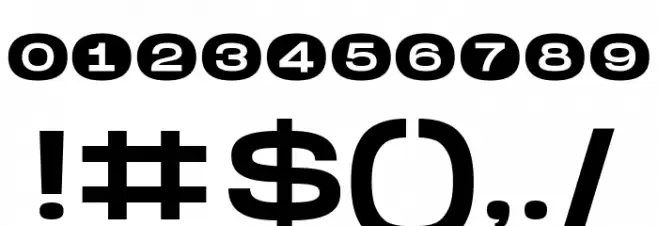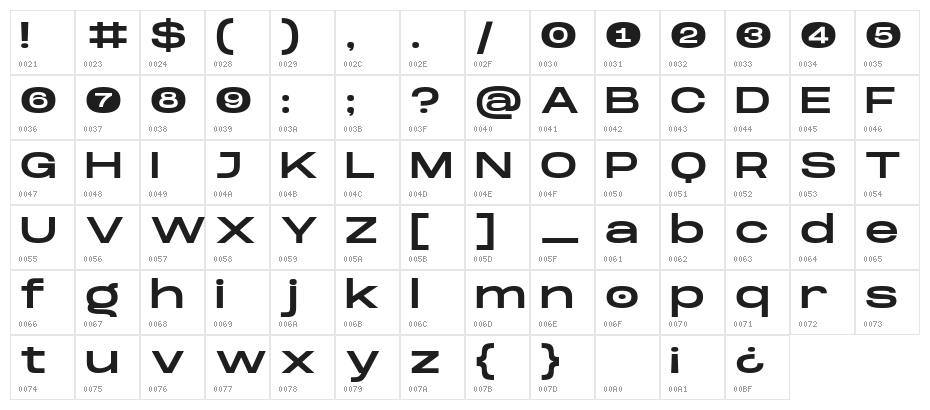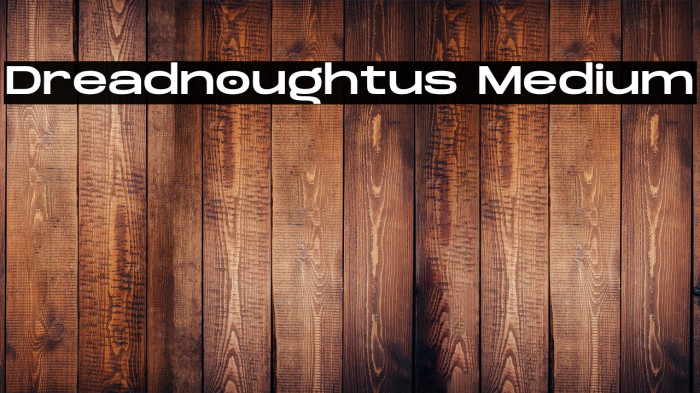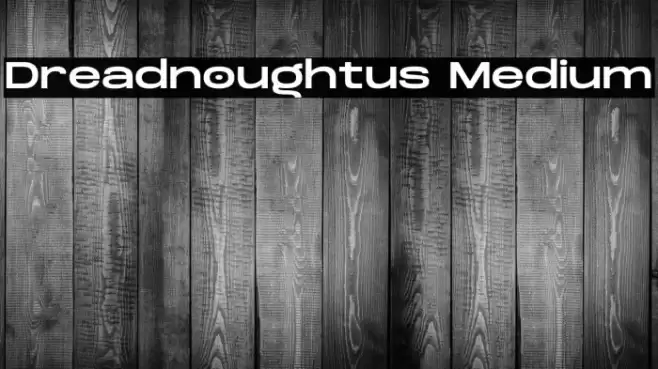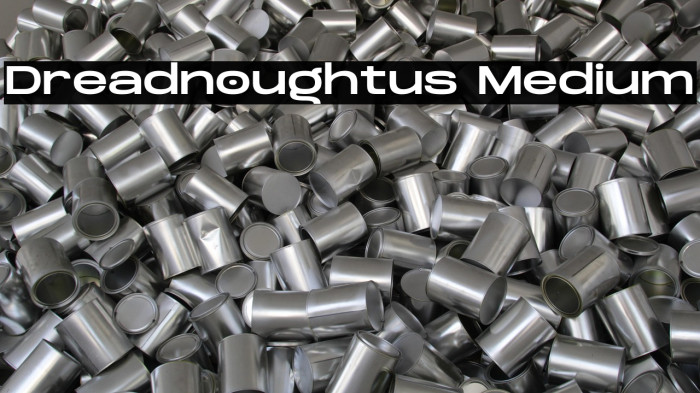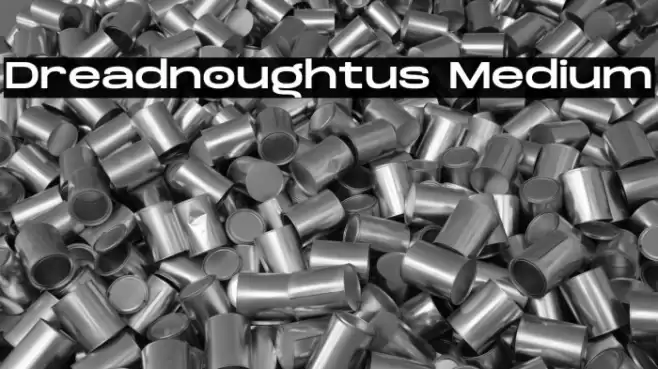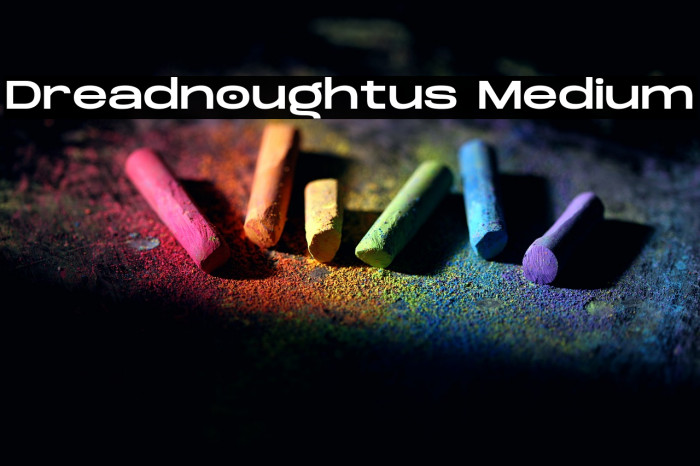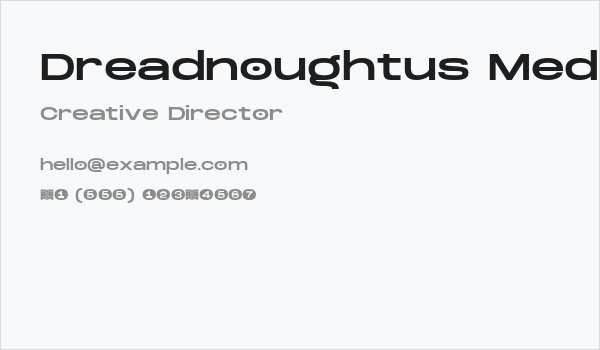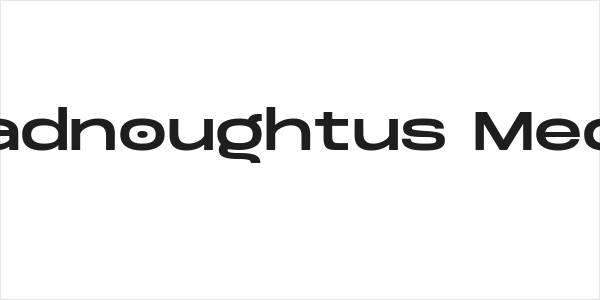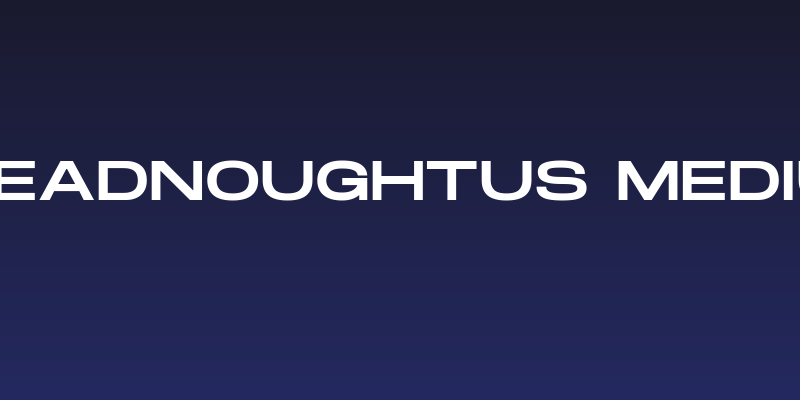
Dreadnoughtus Medium Font
Dreadnoughtus Medium Description
This font features a bold and modern design with a geometric structure. The uppercase letters are strong and assertive, while the lowercase letters maintain a consistent roundness, offering a harmonious balance. The numerals are clear and distinct, making them easily readable. Special characters are designed with a bold presence, ensuring they stand out. The overall style is clean and contemporary, suitable for a variety of applications where a modern and impactful look is desired.